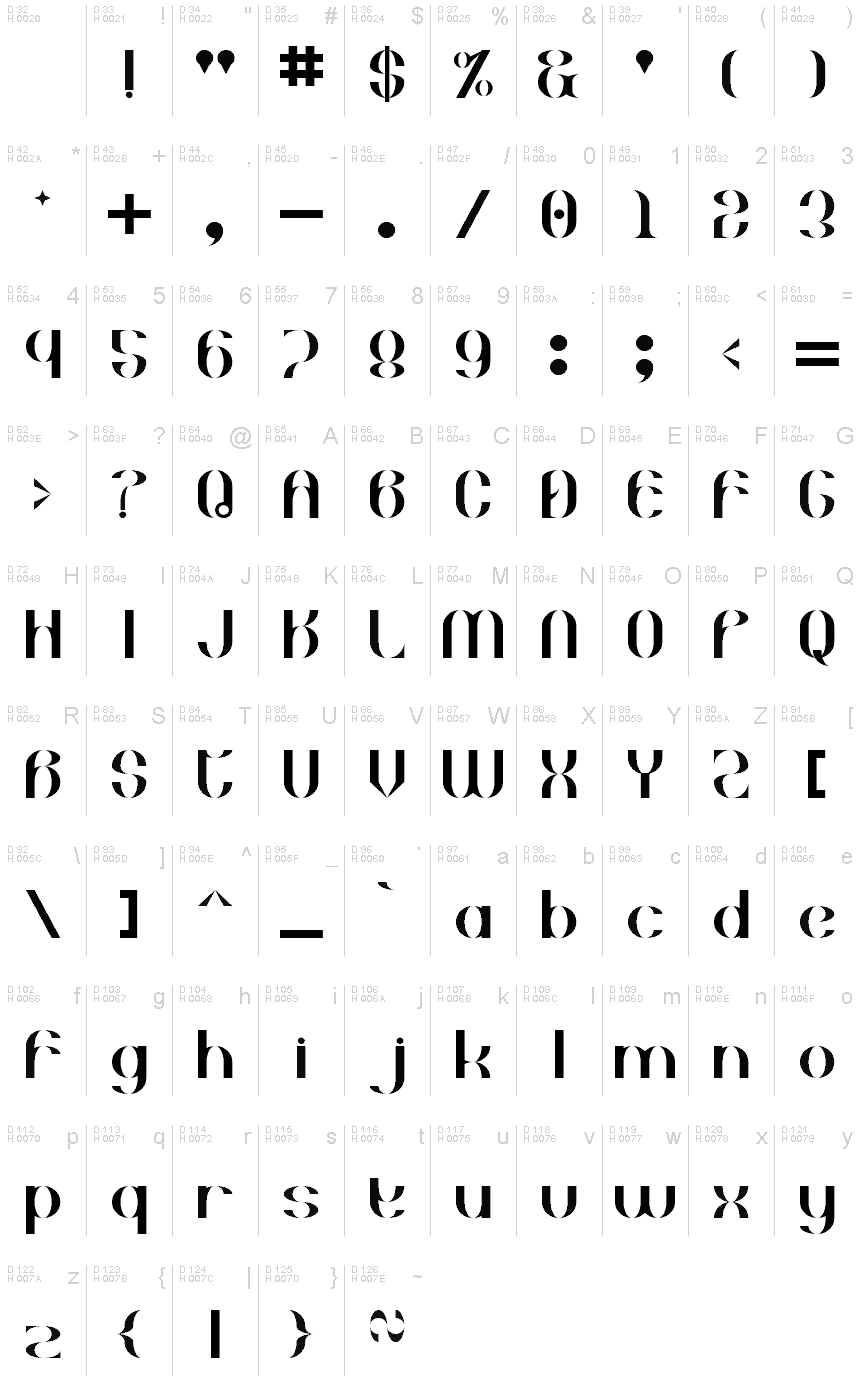
Goud Regular
“Goud” was built with FontStruct
Designer description: Another experimental "claw" font. Rather than serve an ornamental or decorative purpose, this one is made to be as clean as possible so that it works well for body text. It's highly legible at small size, so it could potentially even be a programmer's font!
"Goud" stands for "Garden of Unearthly Delights", the name of an album from the band Cathedral.